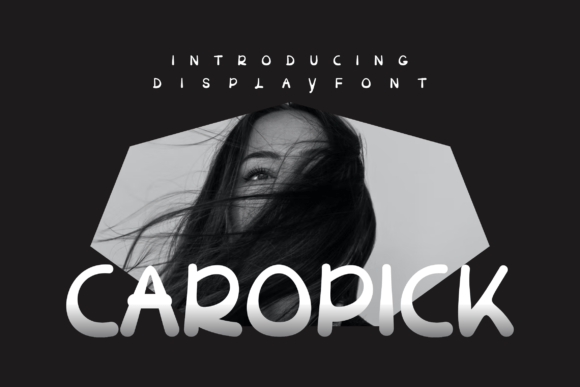
Adorn your designs with the mesmerizing Caropick Font, a captivating display typeface that exudes elegance and sophistication. As a fashionista, you deserve a font that resonates with your creative vision, one that embraces individuality and sets your designs apart from the mundane. With its bold strokes, flowing curves, and a touch of playfulness, Caropick Font delivers just that.
Unleash your imagination and let Caropick Font carry your designs to new heights. Crafted with passion and meticulous attention to detail, each glyph exudes a unique character, ready to tell a captivating story. Engage your audience with headlines that dance, subheads that intrigue, and body copy that captivates.
Elevate your fashion, beauty, and lifestyle brand with Caropick Font. Picture this: Your designs come to life, exuding a luxurious aura that exudes confidence and style. Your audience is spellbound, drawn into a world where dreams meet reality.
Indulge in the beauty of Caropick Font. Its versatility knows no bounds, effortlessly adapting to a myriad of creative endeavors. From fashion magazines and captivating album covers to social media posts that ignite engagement, Caropick Font is your creative ally, transforming your ideas into masterpieces.
Caropick Font awaits your creative touch. Adorn your projects with its exquisite charm, and let your designs dance with a grace that leaves them breathless. Embrace the power of expression and make a bold statement with every word.